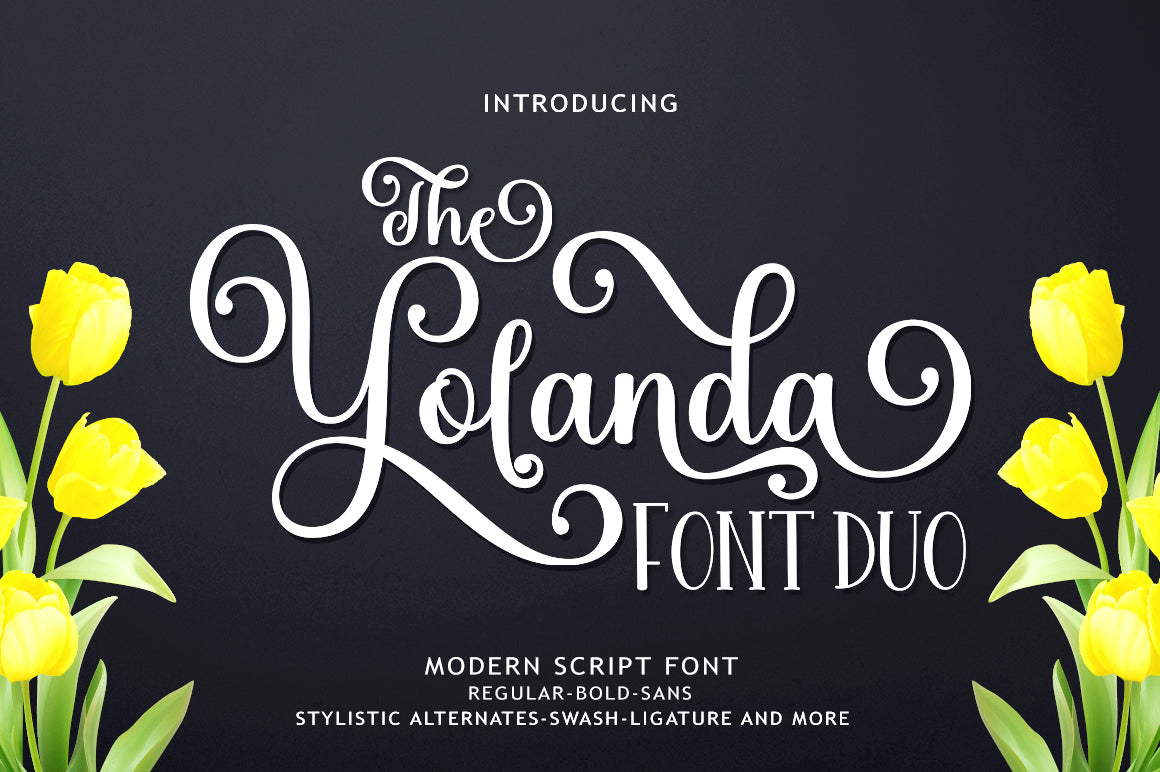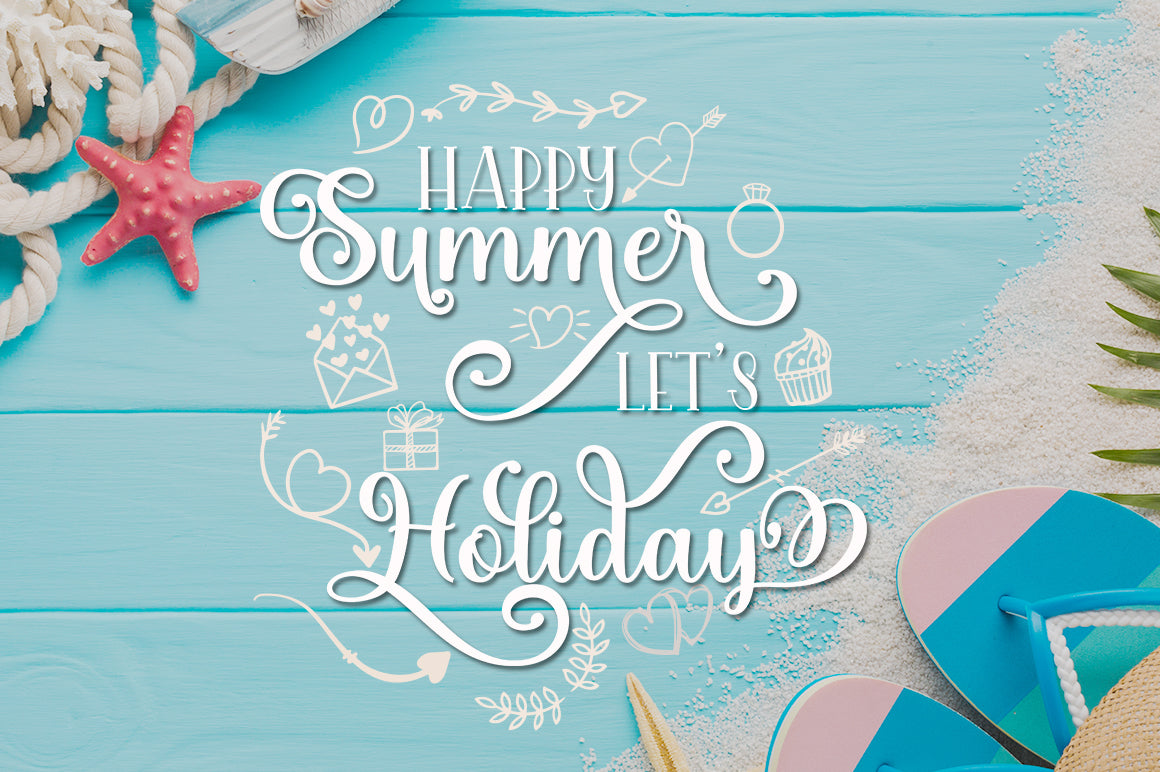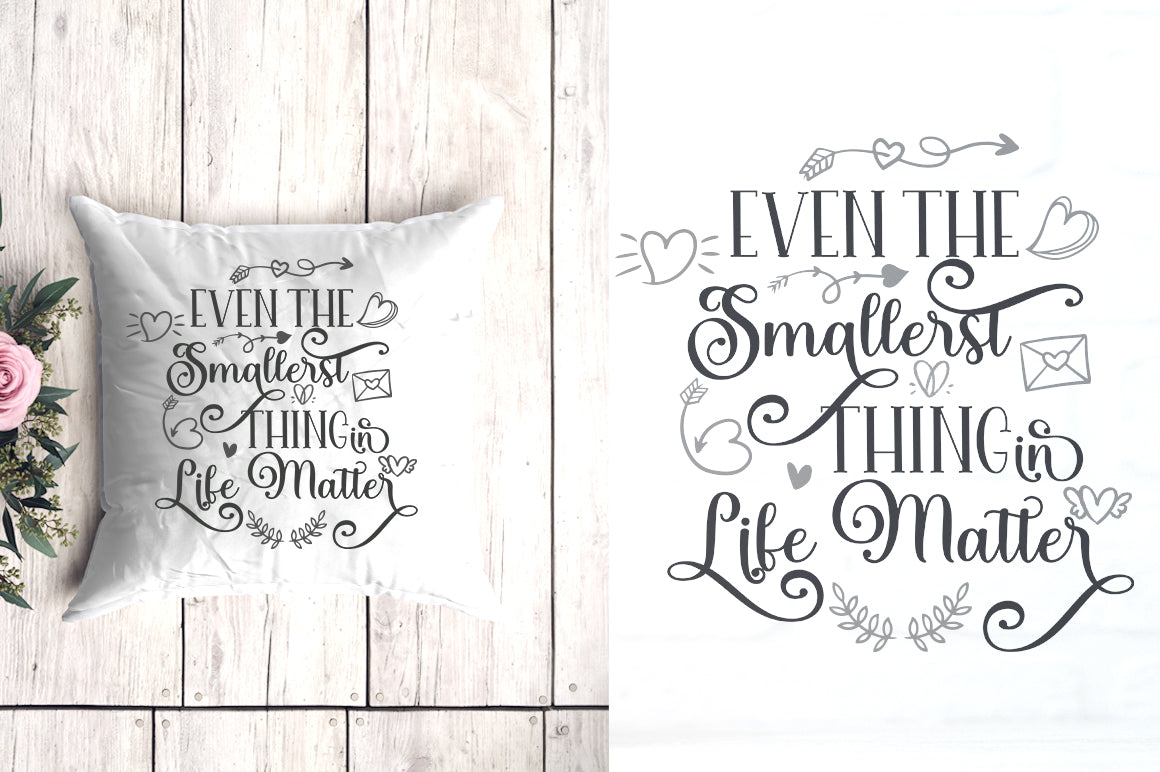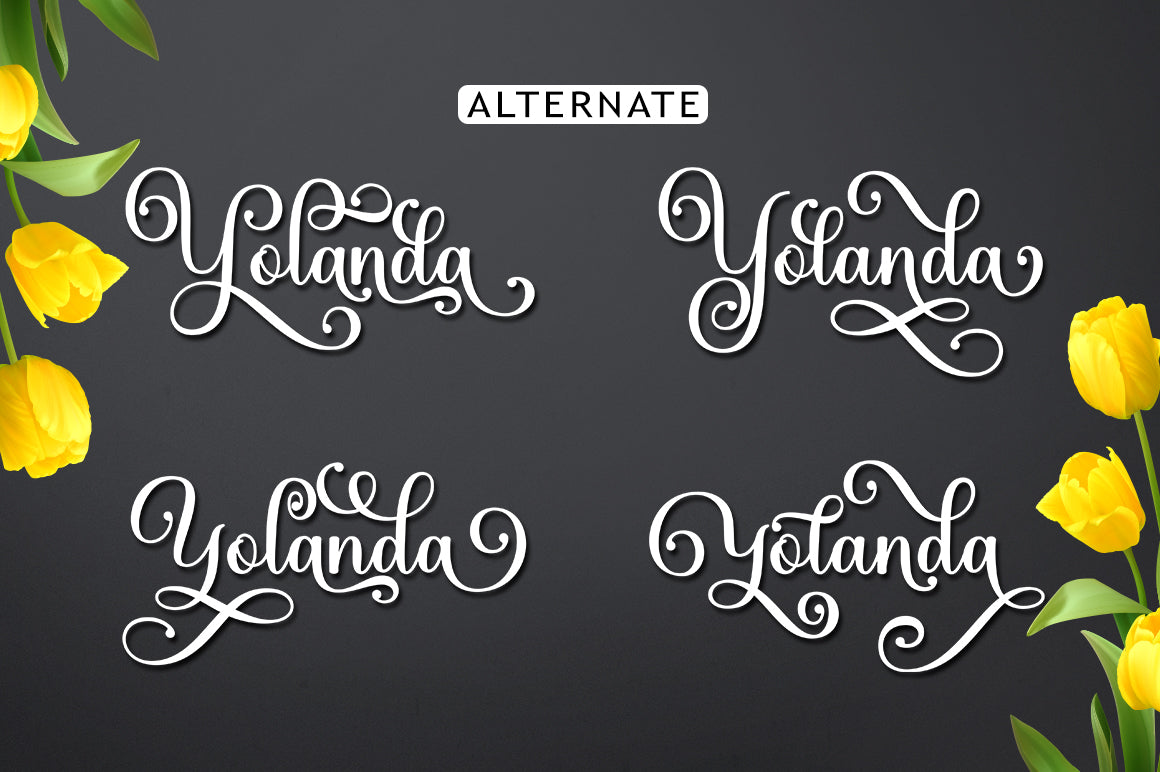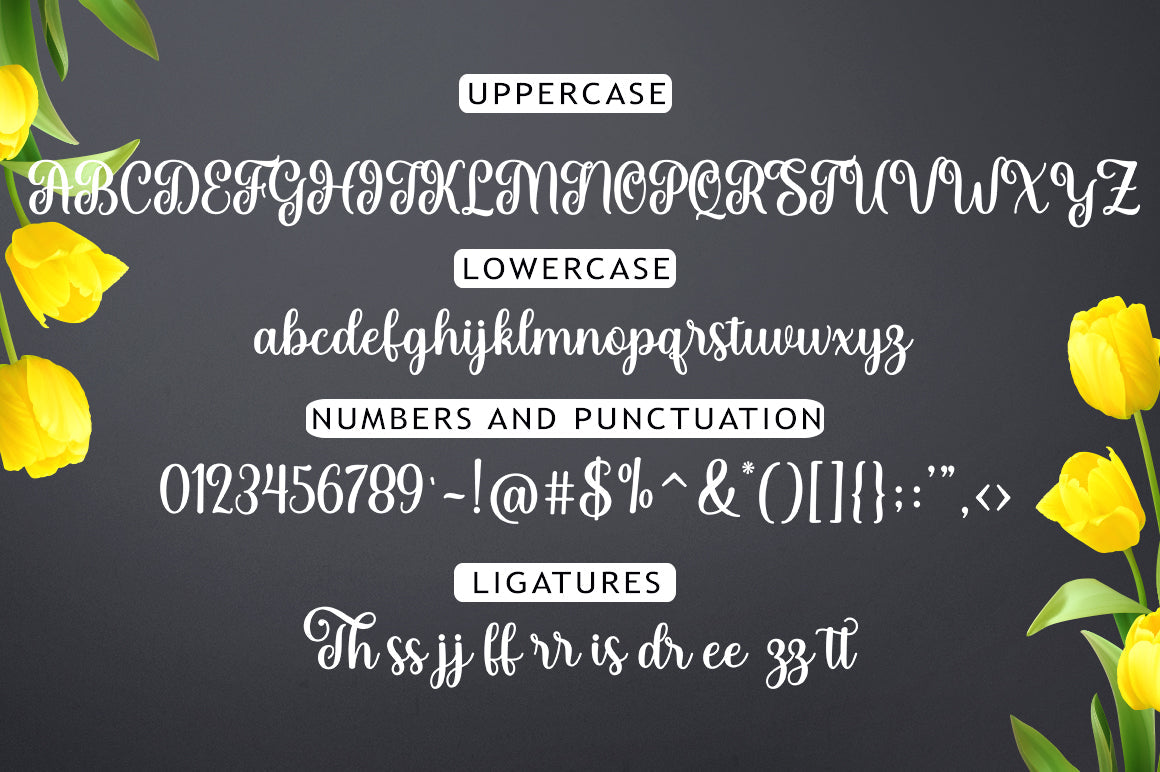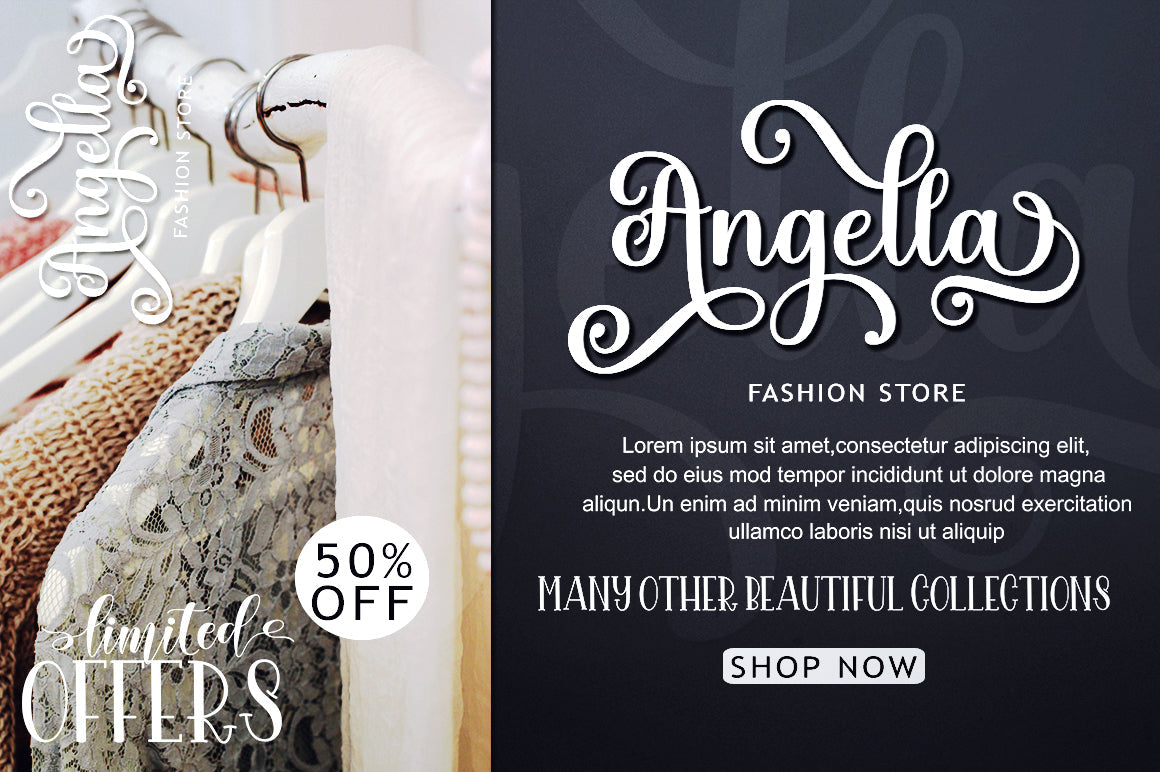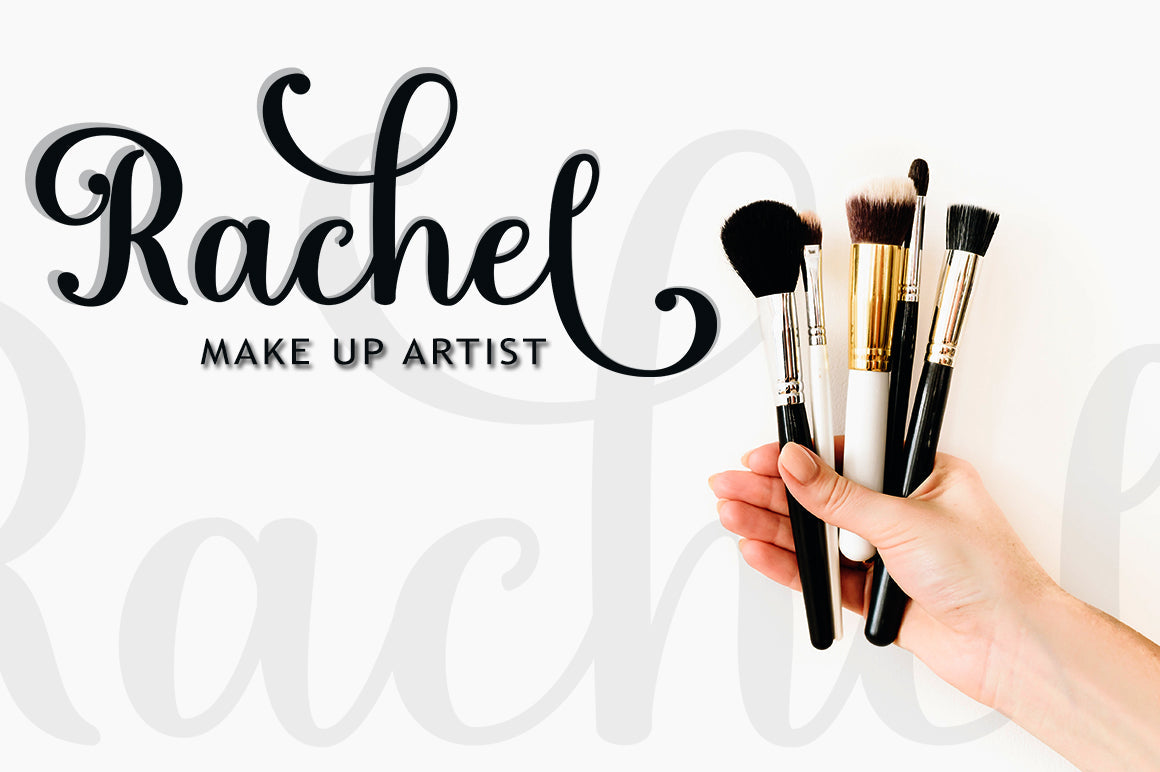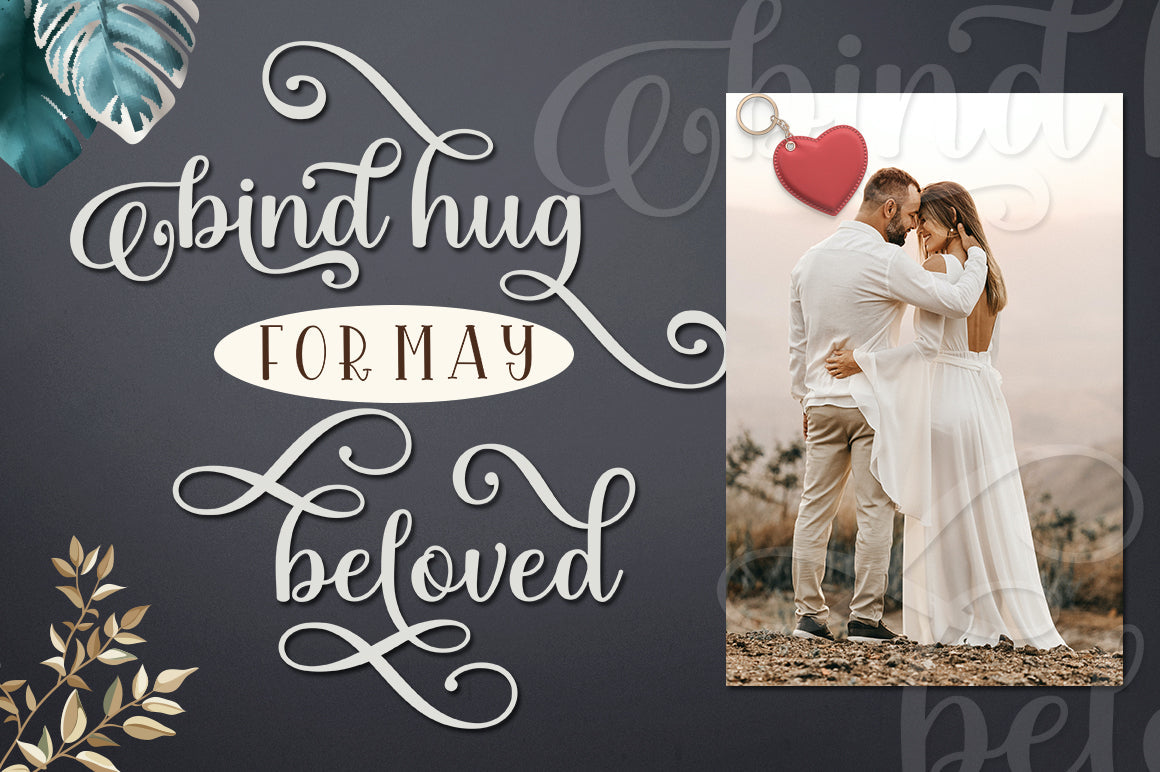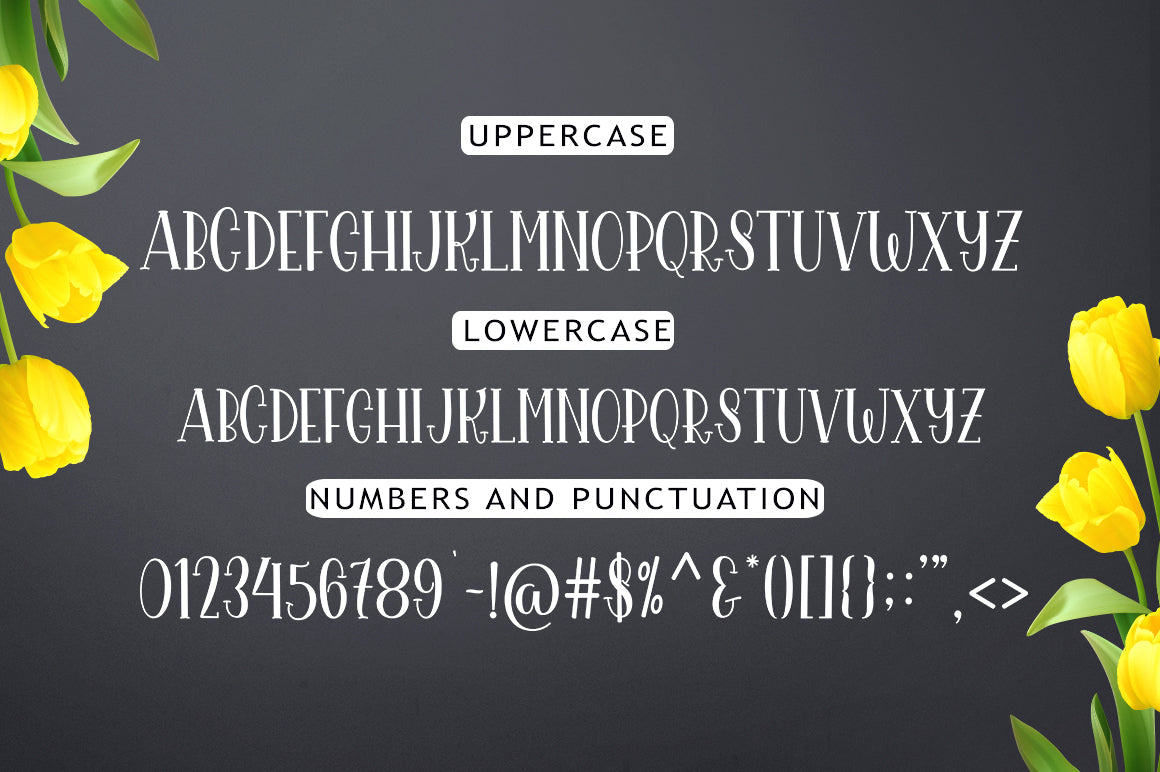
The Yolanda Font Duo
About The Yolanda Font Duo
The Yolanda Font Duo is a hand brush font created with brush and ink. This typeface is ideal for use in bold watercolor designs or handwritten styles, such as blog titles, posters, wedding elements, t-shirts, clothing, book covers, business cards, greeting cards, branding, merchandise, etc. Contains the complete set: – Uppercase – Lowercase – alternative – fasteners – Punctuation – number – Multilingual support. How to access all alternative characters, using the Windows Character Map with Photoshop: – https://www.youtube.com/watch?v=Go9vacoYmBw How to access all alternative characters using Adobe Illustrator: – https://www.youtube.com/watch?v=XzwjMkbB-wQ Thank you!